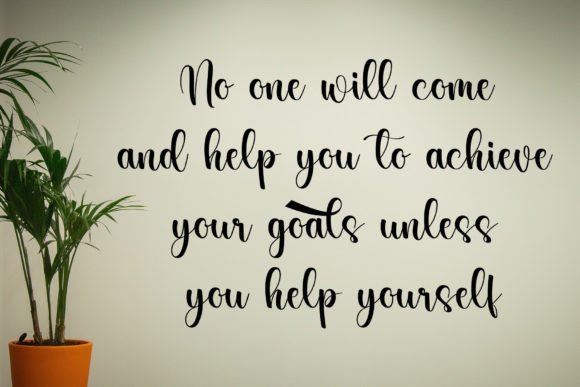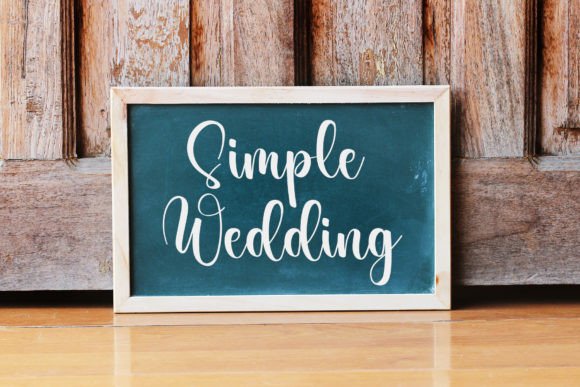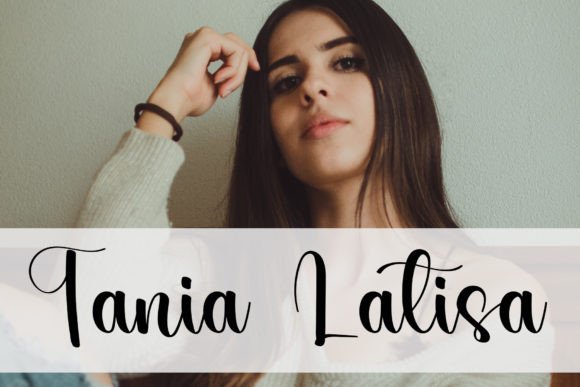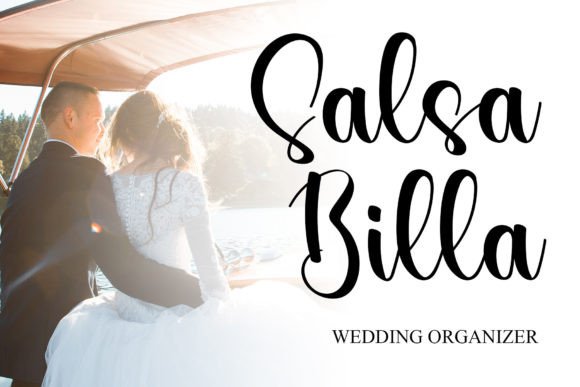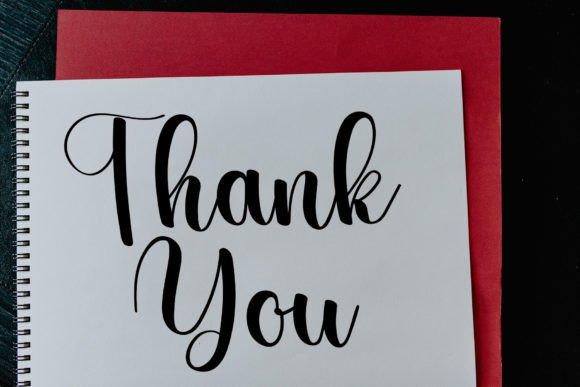
Introducing Chunky Font: Elevate Your Designs with a Touch of Timeless Elegance
In the world of typography, fonts play a crucial role in conveying the tone and personality of a design. For designers and crafters looking to add a touch of sophistication and style to their projects, Chunky font is an excellent choice. This stylish handwritten font boasts a contemporary atmosphere and impeccable form, making it perfect for a wide range of applications.
Inspired by Timeless Classic Calligraphy
Chunky font draws inspiration from timeless classic calligraphy, bringing a sense of tradition and elegance to modern designs. The font’s classic roots are evident in its balanced and varied letterforms, which work harmoniously to create a visually appealing aesthetic. Whether you’re working on a branding project, packaging design, or craft project, Chunky font is sure to elevate your work.
Key Features of Chunky Font
- Handwritten with a contemporary twist: Chunky font combines the warmth and personality of handwritten typography with a modern, contemporary feel.
- Impeccable form: The font’s carefully crafted letterforms ensure that it looks great in any context, from large headlines to smaller body text.
- Balanced and varied: Chunky font features a range of letterforms and ligatures, creating a natural, organic feel that’s perfect for designs that require a touch of elegance.
Chunky font is an excellent choice for designers and crafters working on a variety of projects, including:
- Branding and logos: Use Chunky font to create a memorable and stylish logo that sets your brand apart.
- Packaging design: Add a touch of sophistication to your packaging designs with Chunky font’s elegant letterforms.
- Stationery and invitations: Create beautiful, handmade-style stationery and invitations with Chunky font.
- Craft projects: Use Chunky font to add a personal touch to your craft projects, such as scrapbooking, card making, and more.
Tips for Using Chunky Font
To get the most out of Chunky font, here are a few tips to keep in mind:
- Experiment with font sizes: Chunky font looks great in a range of font sizes, from large headlines to smaller body text.
- Pair with complementary fonts: Combine Chunky font with complementary fonts to create a unique and visually appealing typography scheme.
- Play with color: Take advantage of Chunky font’s elegant letterforms and experiment with different colors and textures to add depth and interest to your designs.
Chunky font is a stylish and versatile font that’s perfect for designers and crafters looking to add a touch of timeless elegance to their projects. With its impeccable form, balanced and varied letterforms, and contemporary atmosphere, Chunky font is sure to elevate your designs and help you stand out from the crowd.
Whether you’re working on a branding project, packaging design, or craft project, Chunky font is an excellent choice. So why not give it a try and see how it can enhance the beauty of your projects?